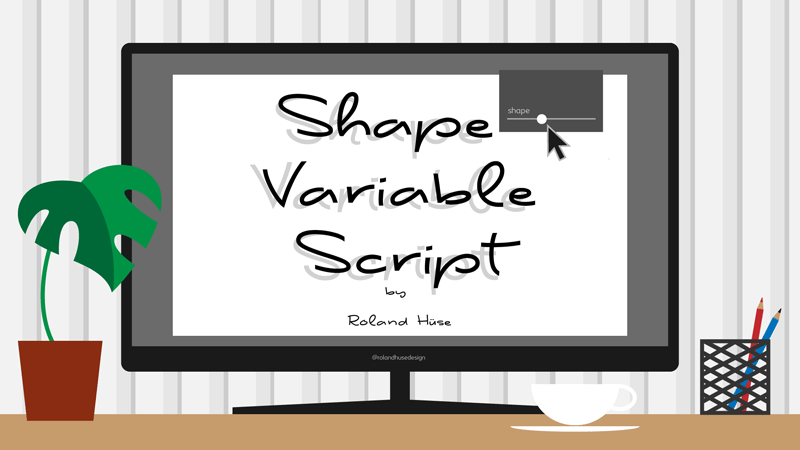
SHAPE VARIABLE SCRIPT is an experimental handwriting script that has 2 versions and you can change the shapes of the letter in between with variable font control or make a kind of bouncy animation on the web if you are familiar with css and html + variable fonts. There are ligatures for "te" "th" "tt" and "ve". To enable these, turn on "Standard Ligatures" in the Open Type panel. Please note that this is a demo version for personal use and try out. For commercial use please visit https://rolandhuse.com Inquiries, feedback, customisation requests and/or extra characters please contact@rolandhuse.com * * * You may not sell these fonts or claim them as your own. edit or rename these fonts. redistribute these fonts. Find more of my works on instagram @rolandhusedesign Subscribe and learn Working With Glyphs at workingwithglyphs.com Thank you and hope you like this font! Have a great day and good luck with your work, Roland |